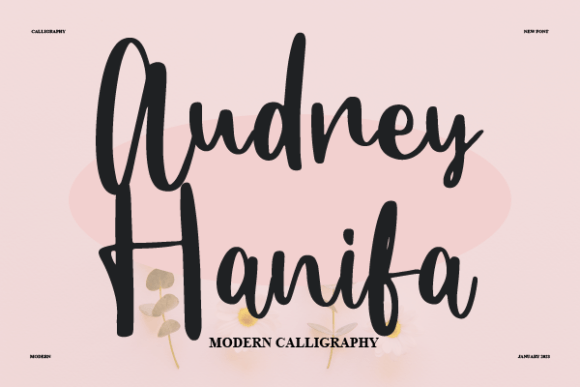
Immerse yourself in the world of Audrey Hanifa, a captivating handwritten script font that exudes charm and sophistication. This font is a masterpiece, carefully crafted with the utmost attention to detail and a passion for elegance. Its flowing curves and delicate swirls dance across the page, creating a visual symphony that will leave you breathless.
Step into a realm of endless possibilities with Audrey Hanifa. Whether you're a creative professional seeking to infuse your designs with timeless beauty or a hobbyist yearning to add a touch of personal flair to your projects, this font is your perfect companion. Its versatile nature shines through in its ability to seamlessly blend with a wide range of design aesthetics, from classic to contemporary, whimsical to elegant. Unleash your creativity and let Audrey Hanifa transform your words into works of art.
With Audrey Hanifa, you can effortlessly elevate the allure of your wedding envelopes, transforming them into exquisite works of art. Its graceful strokes and intricate details will add a touch of timeless romance and sophistication to your special day. Your guests will be captivated by the beauty of your invitations, setting an unforgettable first impression for your momentous occasion.
Experience the magic of Audrey Hanifa today and let your creativity soar. Whether you're designing logos, creating stunning social media graphics, crafting heartfelt greeting cards, or embarking on any other creative endeavor, this font will elevate your work to new heights of beauty and elegance. Embrace the power of Audrey Hanifa and let your imagination run wild.